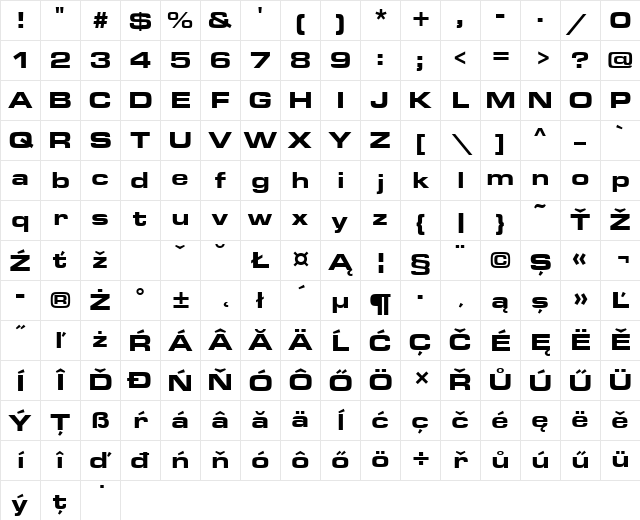
EurostileTEEBlaExt Regular
Complete EurostileTEEBlaExt Regular glyph index. Displaying only characters natively supported by EurostileTEEBlaExt Regular font.
Design Context for EurostileTEEBlaExt
EurostileTEEBlaExt is a composed and adaptable typeface that performs quietly and consistently across a wide range of design contexts.